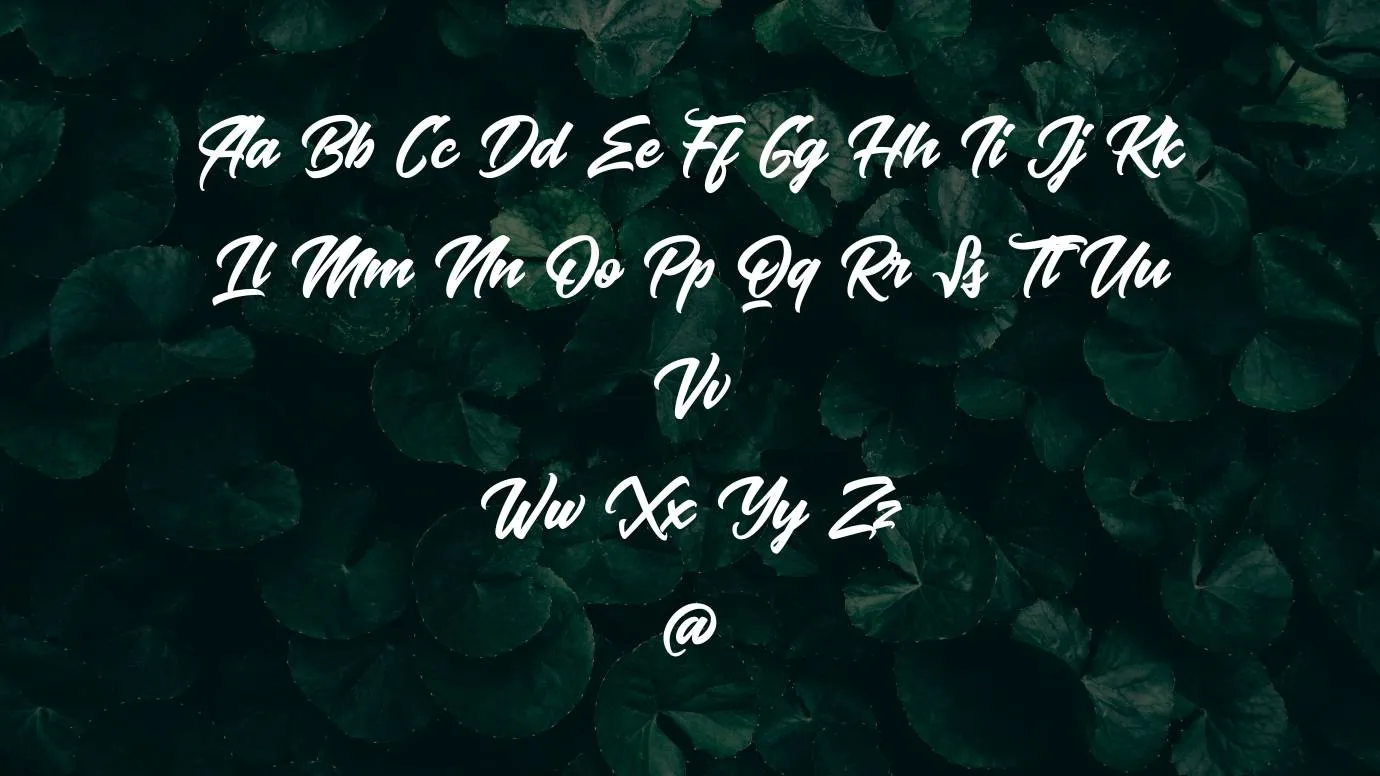
Baksoda Font is a famous script typeface that has an elegant and attractive look. Aliv Pandu and Hamam Jauhari are two brilliant mind designers who took charge of this font creation. Wacaksara Co is the publisher of this typeface.
This awesome font has creative features due to its amazing look. It comes with a decorative look and stylish caps. Due to its eye-catching look, this font family has many international languages support like English, Zulu, Greek, French, Hindi, and so on.
Due to its bold and neat look, it is good for pairing with any similar font like the motion picture font that comes in the script font family. This font family is easy to use for different types of calligraphy text design purposes.
Font Details
NameBaksoda Font
DesignerAliv Pandu and Hamam Jauhari
Foundry Wacaksara Co
TypeScript
Characters and Glyphs
When it comes to the features of this typography then this texture has over 500 fantastic glyphs along with 1024 units per em. Also, the rounded and curvy stylish swashes of this typeface make your designs more attractive.
Baksoda Font
This tremendous font family has uppercase as well as lowercase stunning characters, numbers, specially modified letters, and unique outclass ligatures. The uppercase letters are slightly rounded from the corners and have a curve from the upper angles. The lowercase letters are also attractive and make designs more gorgeous. This is the reason that this standard typeface is impressive among all designers.
Brands Using Baksoda Font
Baksoda typeface is perfect for creating stylish card designs, brochure layouts, flyers designs, and so on. This font family is good for making ebook designs, as well as emblems designs. By using this typography, you can write quotes, make invoices, and for labeling purposes.
This is also suitable for making apparel designs, product packaging, and branding different products. This font family is appropriate for use in social media banner designs, techno card designs, stylish name designs, hotel designs, and many others.
Here, one more best option for that would make the pairing of this texture with graby font which is also a script typeface. By using this font, you can make many special types of signatures. This font family is suitable for creating high-quality graphic design purposes.
What is the main purpose of Baksoda Font?
The main objective of this font is that useful for script heading design purposes due to its bold characters and corners.
What font is similar to Baksoda Font?
The high destiny script font is the best similar font to this amazing script typeface that is a famous script typeface.
Is Baksoda Font a script-type font?
Yes, this font family is a script type and it was established for the first time by Wacaksara Co famous font studio.